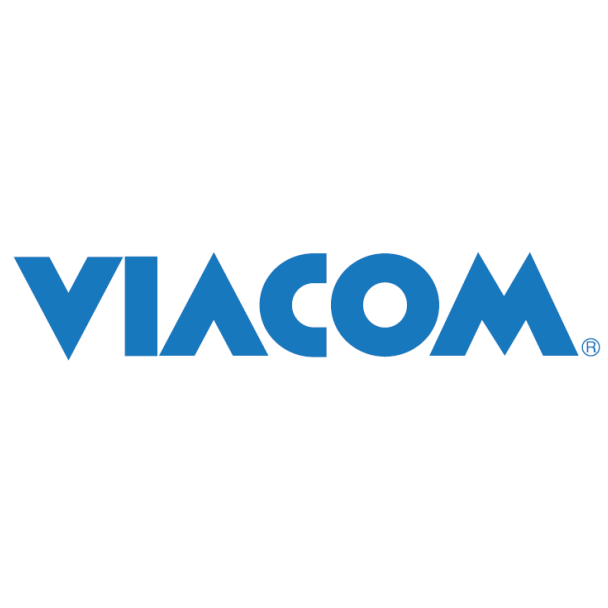
Viacom Logo Font The logo of Viacom is quite identical to a font called Viafont. The Viafont font is a geometric sans-serif font and it was created by JHL Fonts. For both personal and commercial use, this font is free.